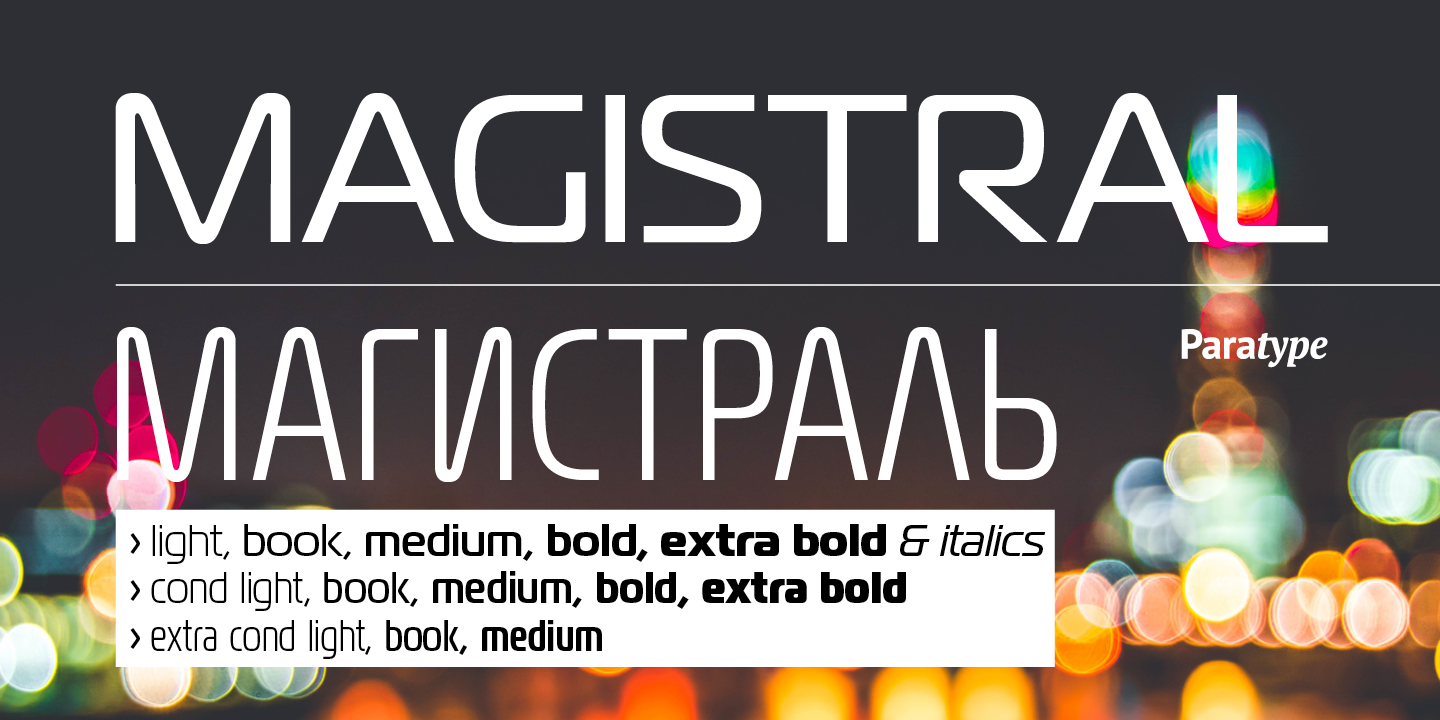
Magistral Font is perfect for legal firm branding, judicial system materials, government publications, academic institutions, prestigious university signage, formal ceremonies, official documents, and authoritative design projects that require commanding typography with judicial dignity and institutional authority.
This Magistral Font is exciting because it embodies the gravitas and authority of judicial proceedings with masterfully crafted letterforms that convey wisdom, justice, and institutional power, featuring classical proportions and dignified character construction that commands respect while maintaining exceptional legibility for official communications.
The Magistral Font family includes authoritative weights with judicial styling, complete character sets with distinguished uppercase and lowercase letters, formal numerals, official punctuation, and institutional symbols that provide comprehensive typography solutions for legal and governmental design projects requiring authentic authoritative aesthetics and ceremonial dignity.
Perfect for creating distinguished official communications and institutional brand identities, Magistral Font Free Download delivers the authoritative typography that transforms text into powerful statements of judicial authority and institutional credibility. This distinctive typeface captures the essence of legal tradition and governmental dignity, making it essential for projects requiring official authority, legal professionalism, academic prestige, and any design demanding commanding character with authentic institutional sophistication and timeless authoritative appeal.